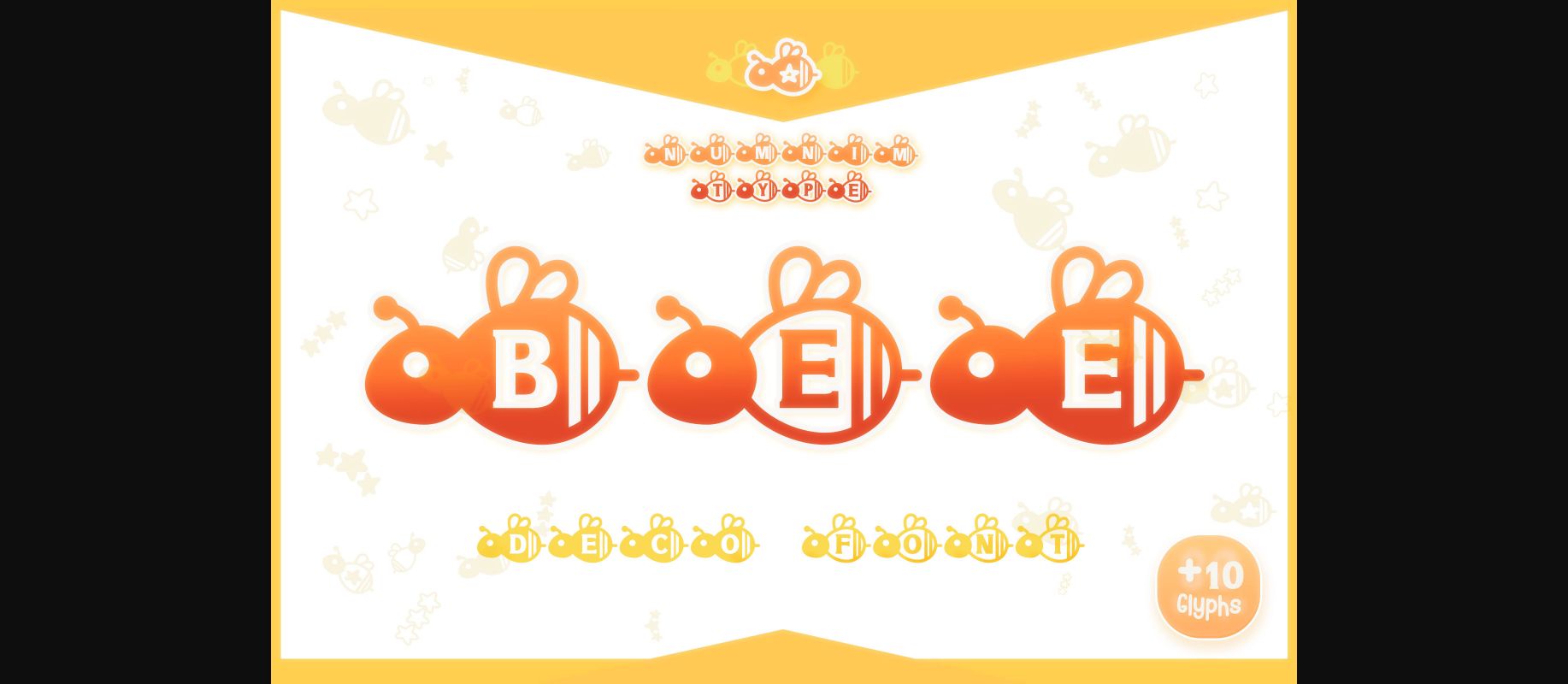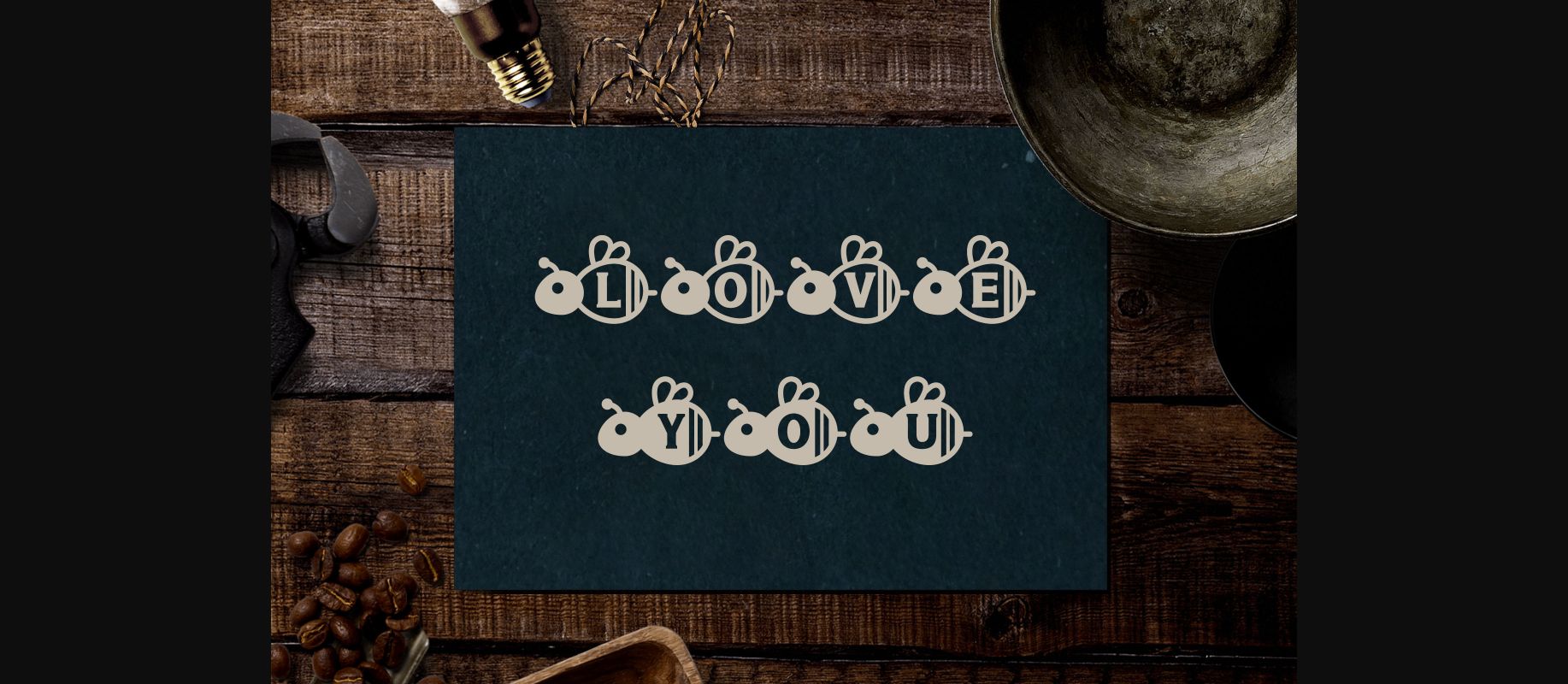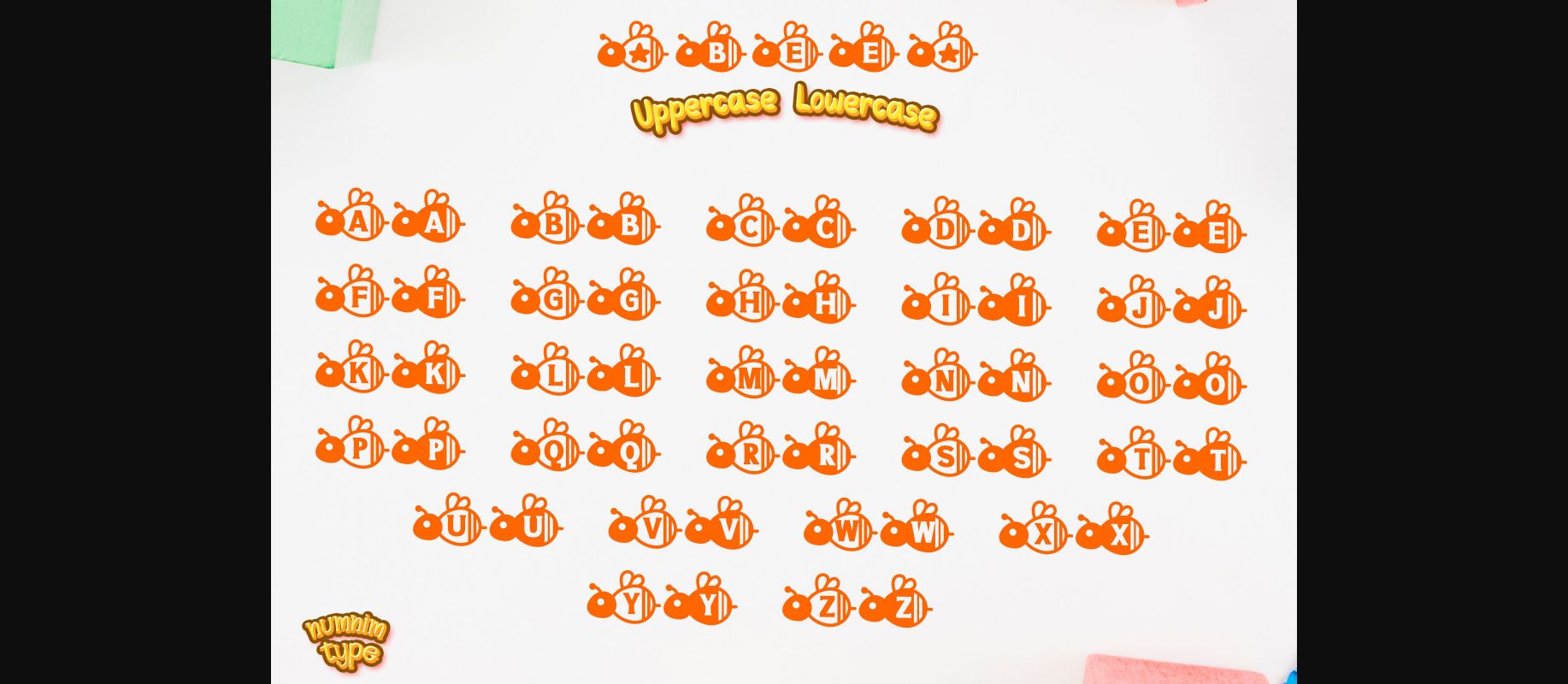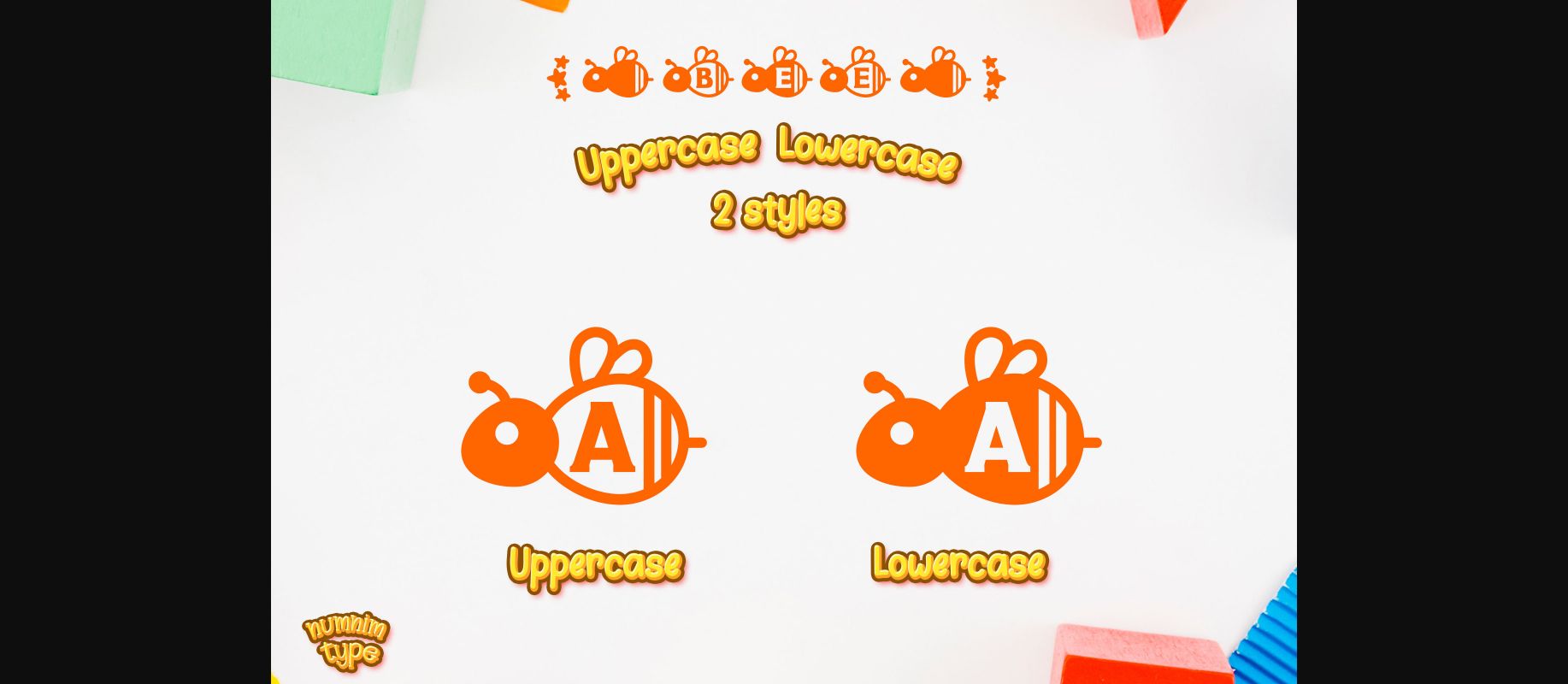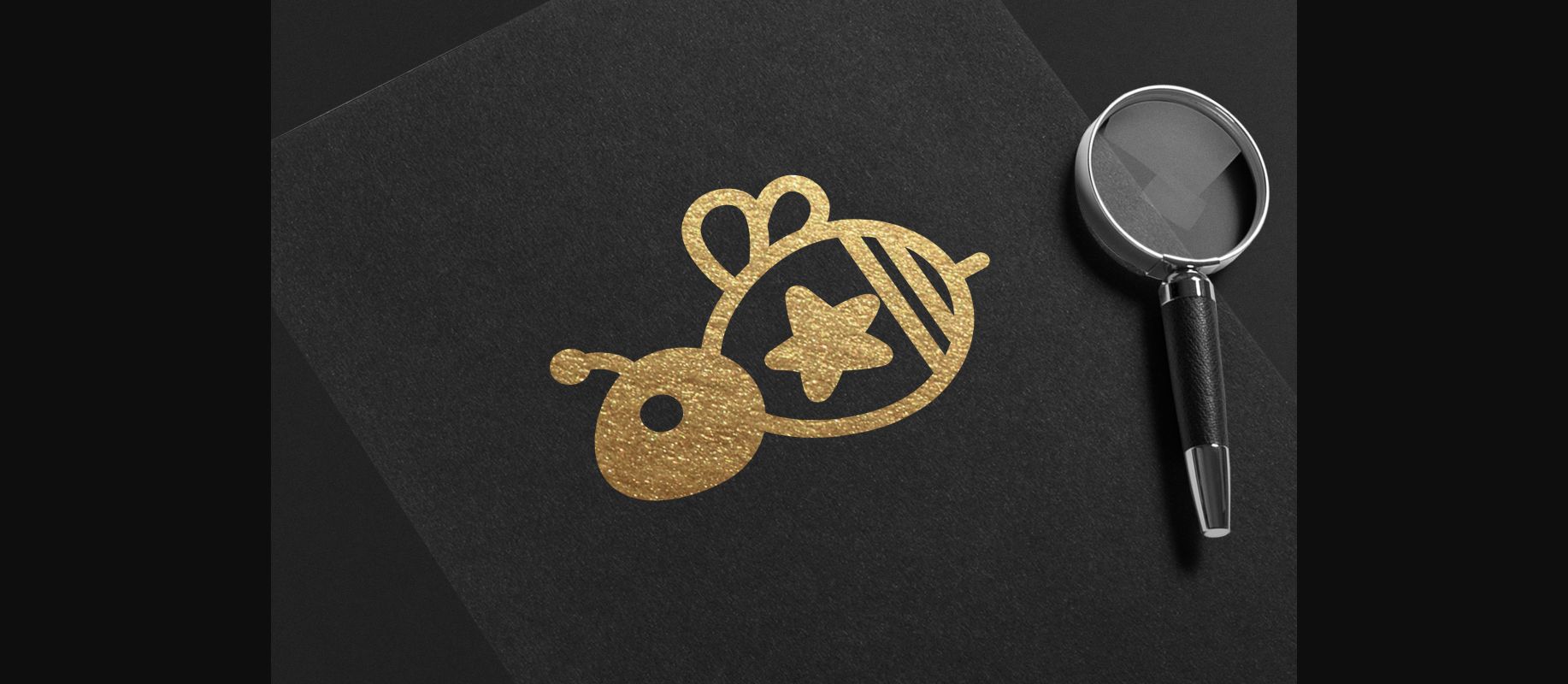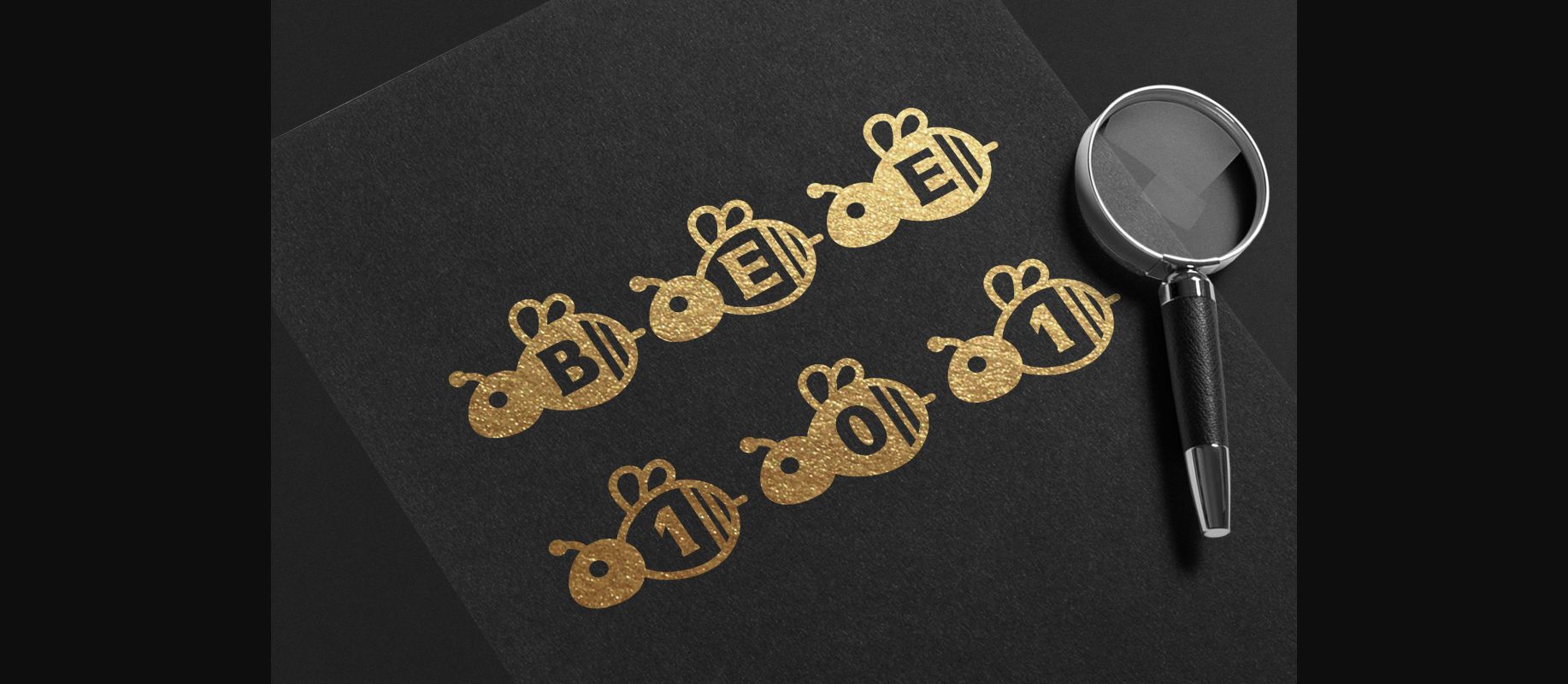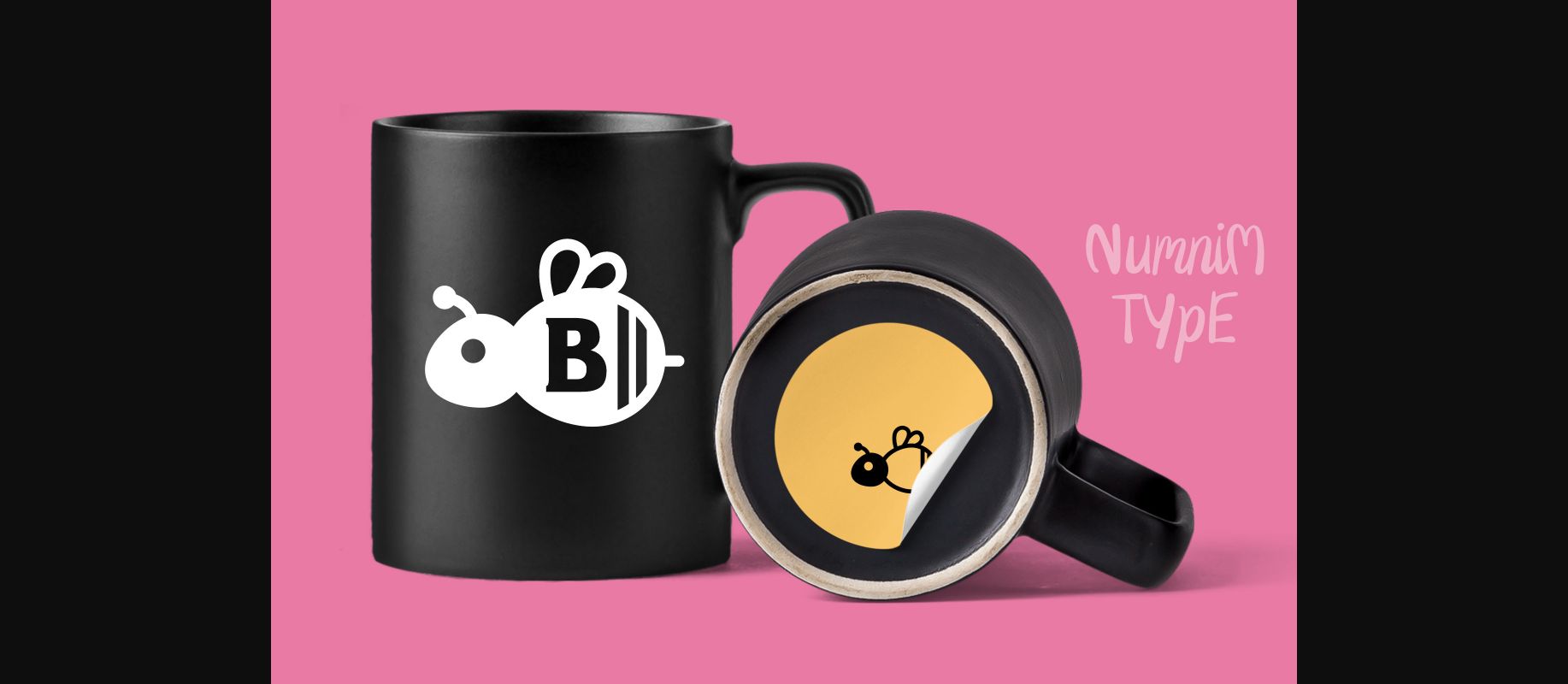
Bee Font
About Bee Font
Bee is a cool and uniquely crafted decorative font. Its fun and playful characters make it the perfect font for stickers, mugs, t-shirts, ornaments, Spring Season’s cards, event invitations, and many more! This font is PUA encoded which means you can access all glyphs and swashes with ease!